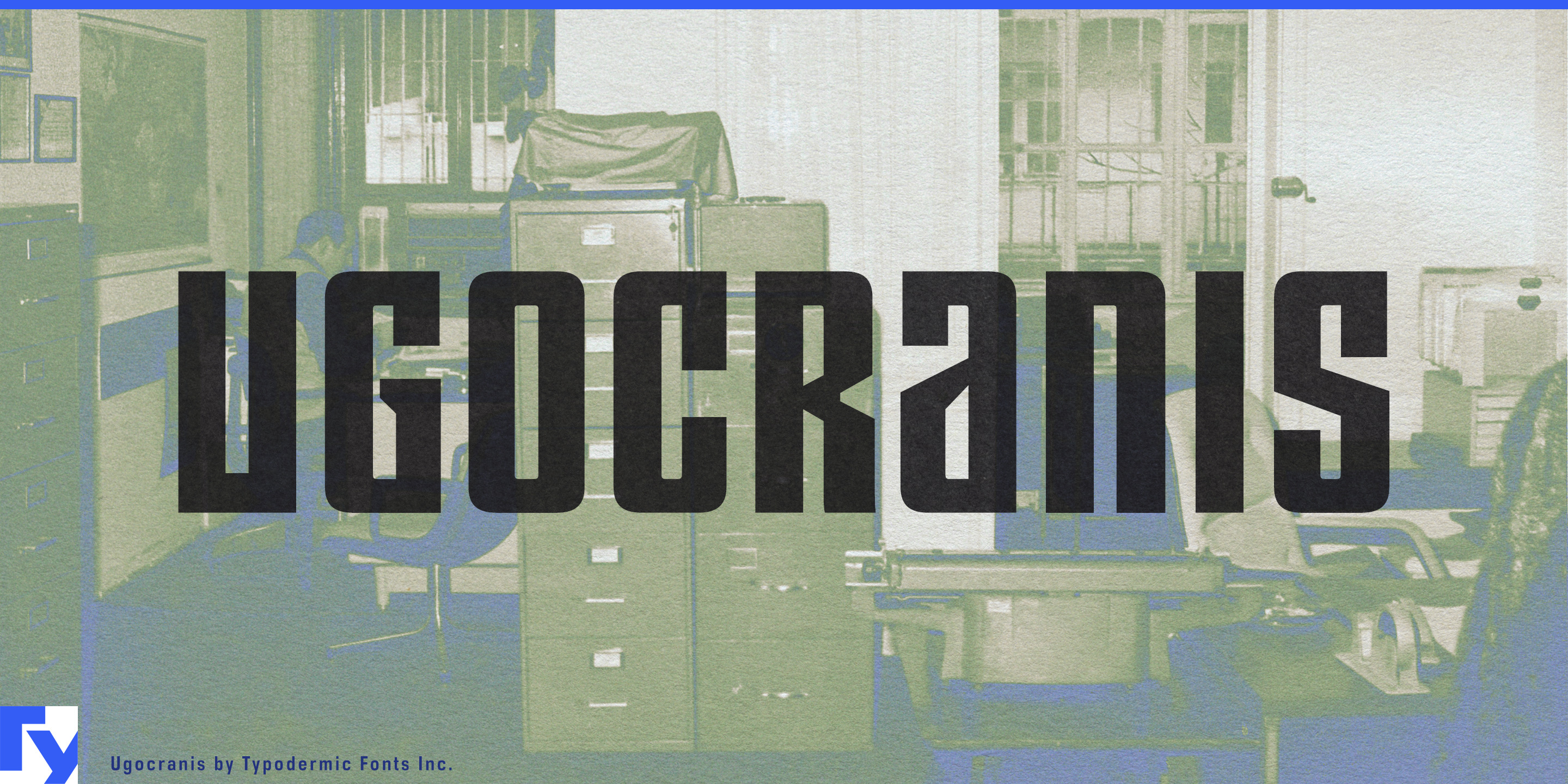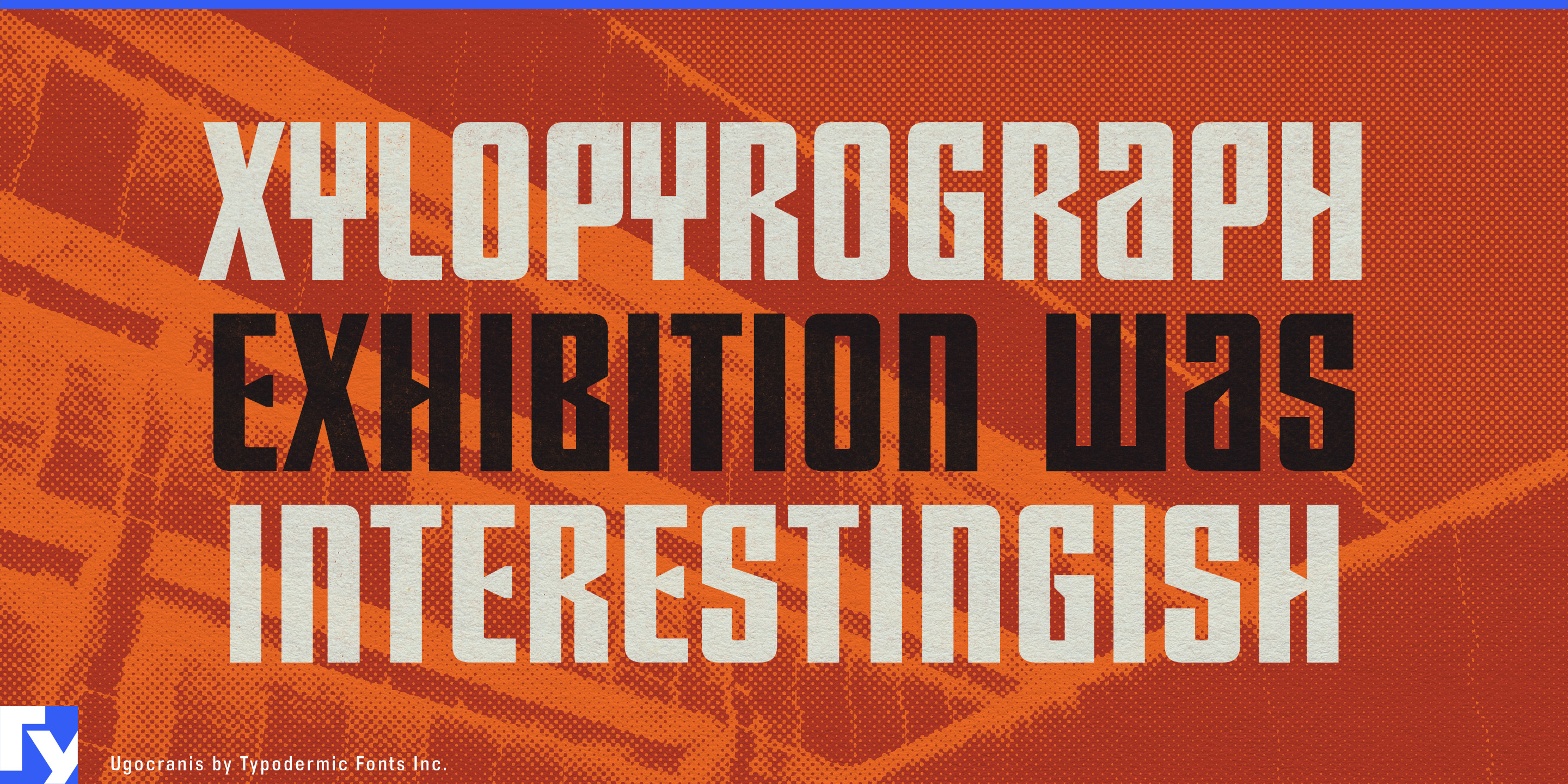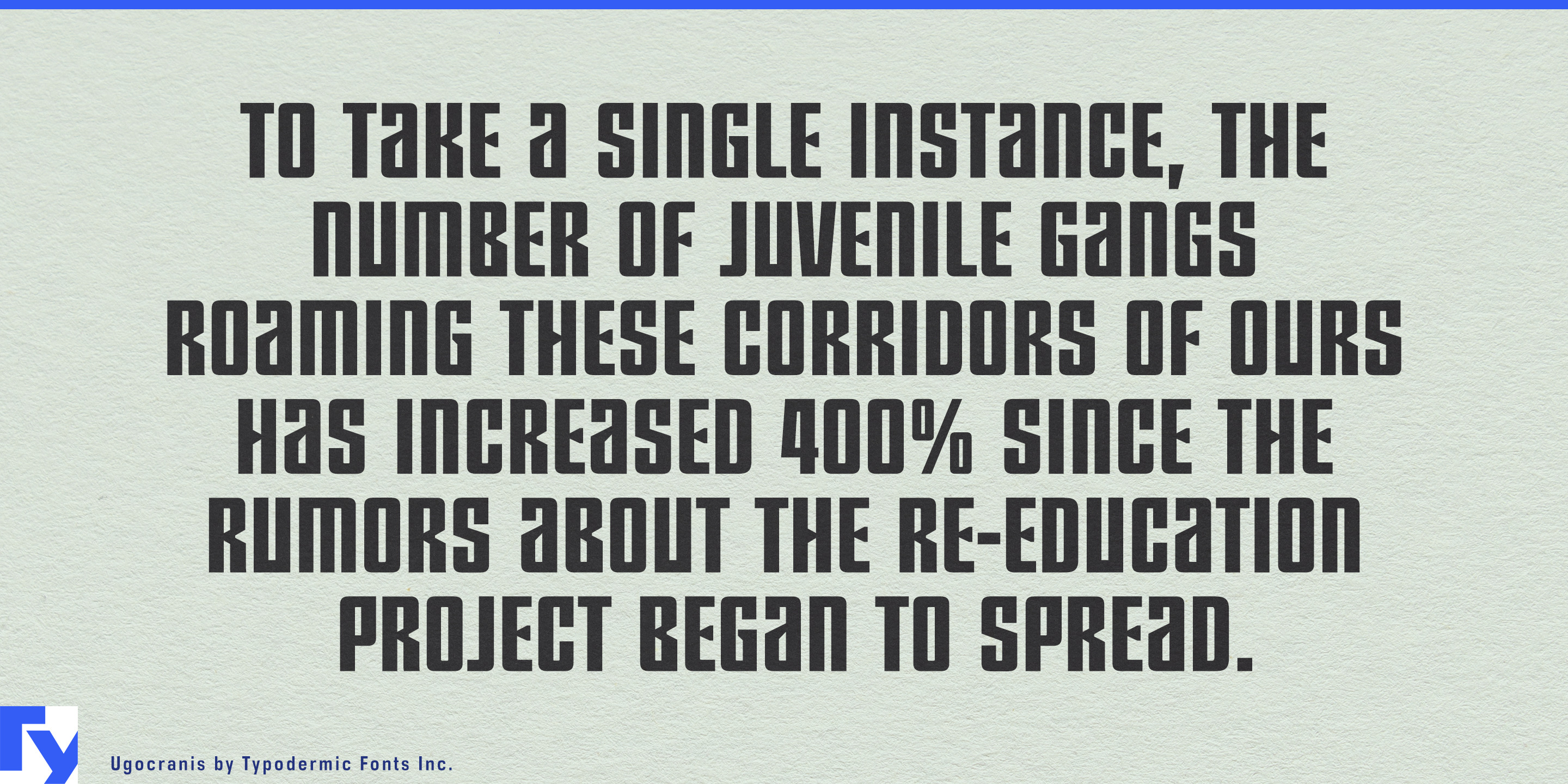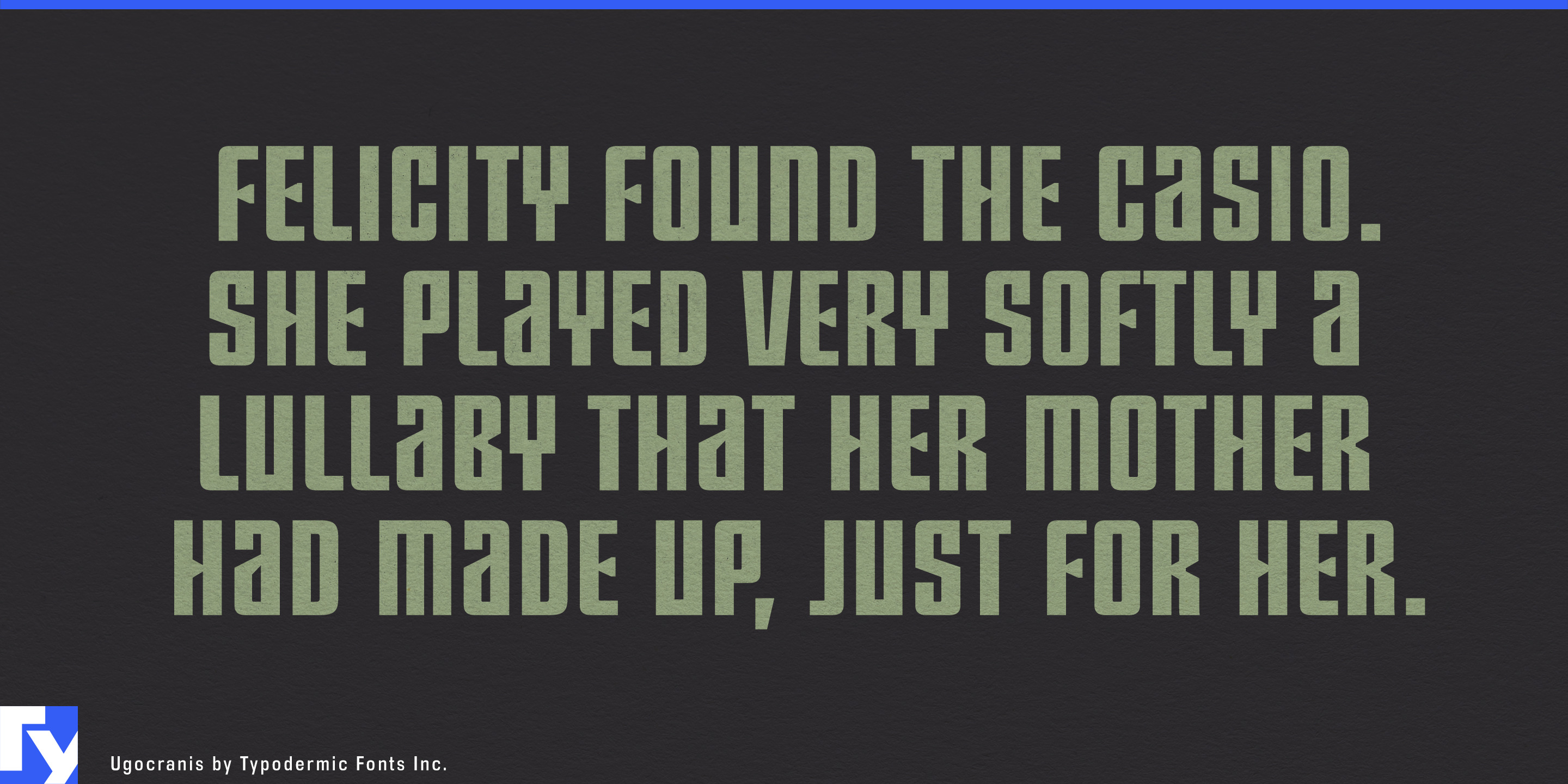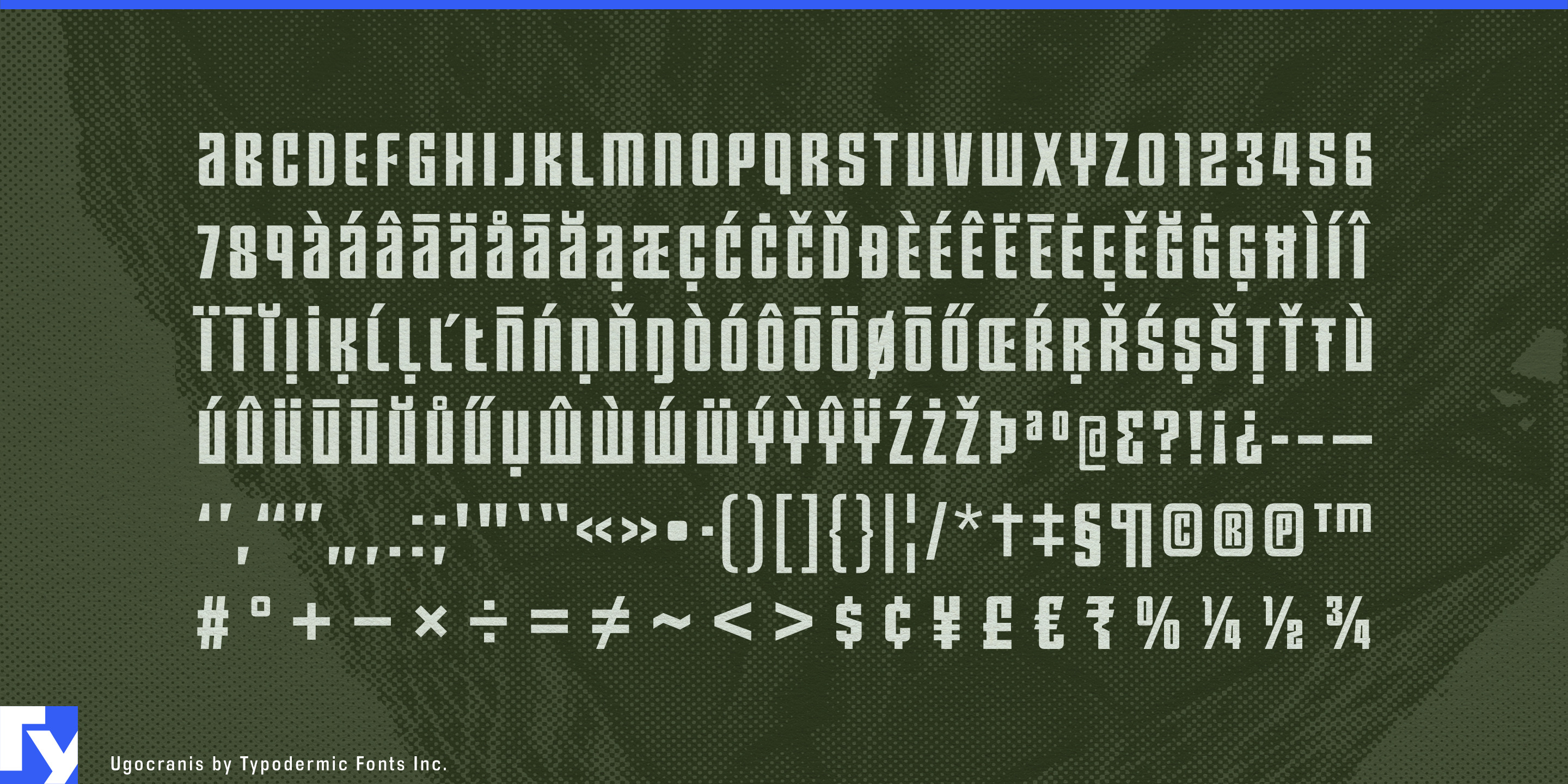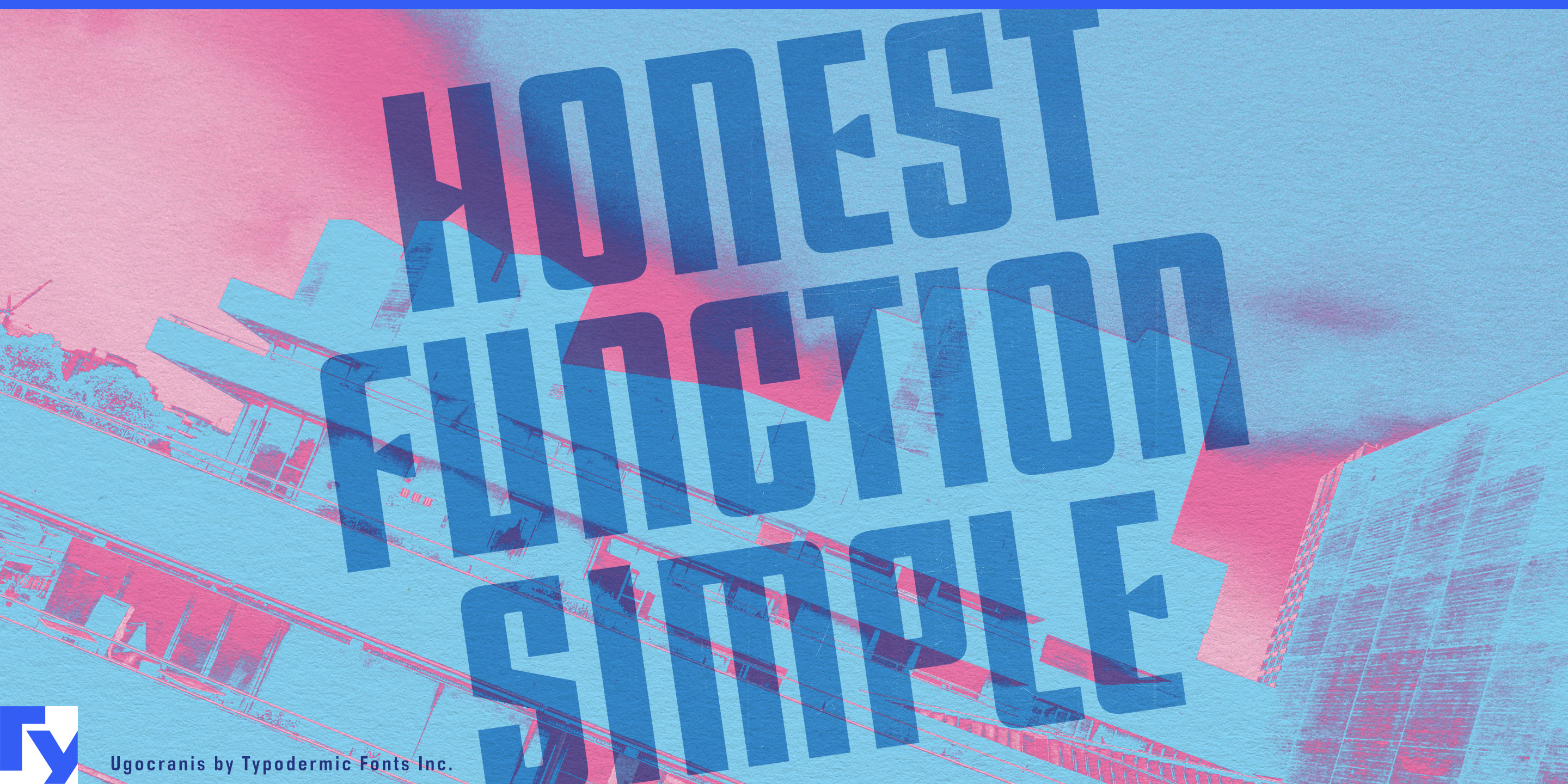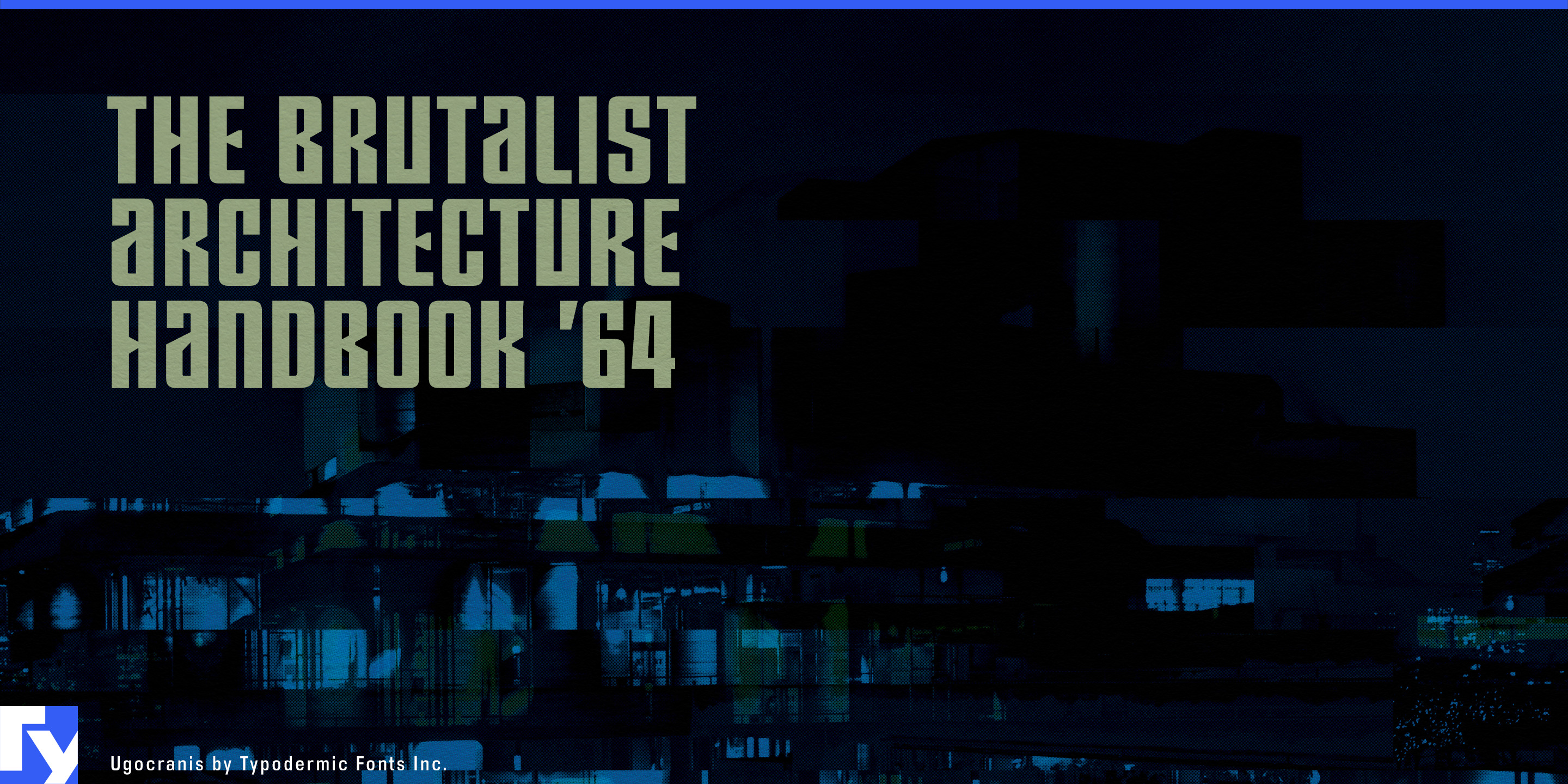
Ugocranis
Ugocranis is a display typeface carved from the same uncompromising spirit that shaped brutalist skylines. Its octagonal letterforms, narrow stance, and consistent stroke weight give it the authority of concrete and the precision of machine-cut steel. Every character feels engineered to last—minimalist, compact, and unapologetically functional.
This efficiency makes Ugocranis perfect for designs that demand impact without wasting space. Tight headlines. Dense, stacked titles. Branding that needs to project strength and modernity. Whether it’s anchoring an industrial music poster, leading the masthead of a design magazine, or marking the entrance to a contemporary art space, Ugocranis delivers with clarity and weight. Despite its hardened exterior, its tall x-height and squared counters keep it readable even at smaller sizes. The result is a typeface that can be as blunt or as refined as the job requires. And with language support from Afrikaans to Zulu, Ugocranis carries its architectural discipline across borders.
If you need a headline font that stands firm, speaks plainly, and looks like it was built to weather decades of shifting trends, Ugocranis is ready to take its place in your next project.